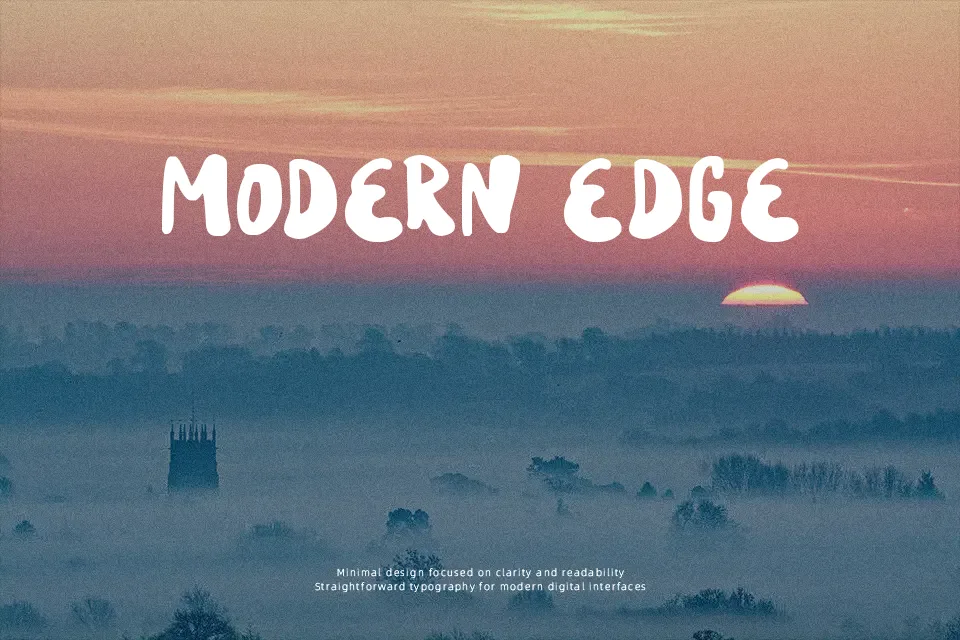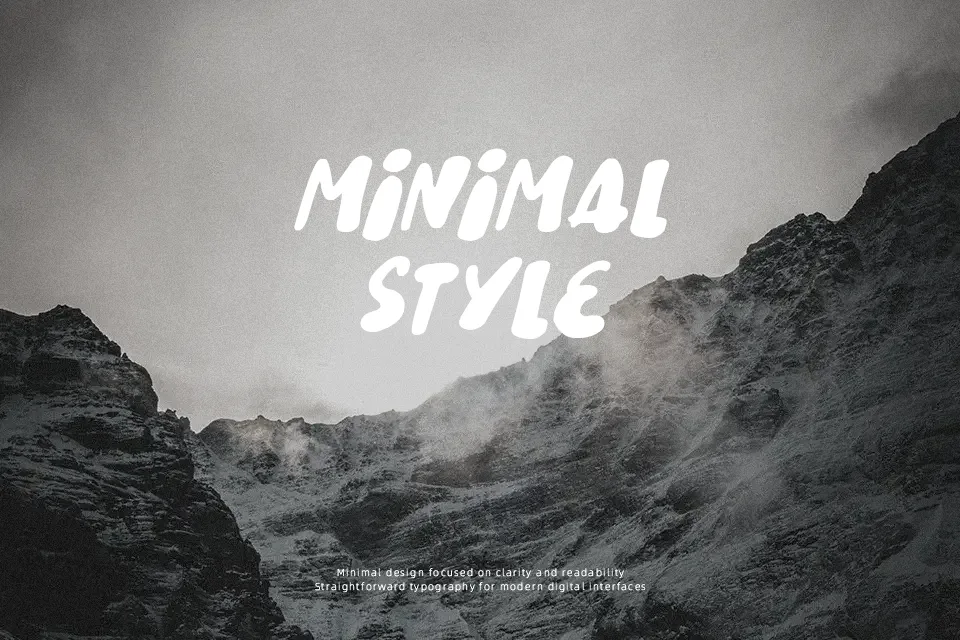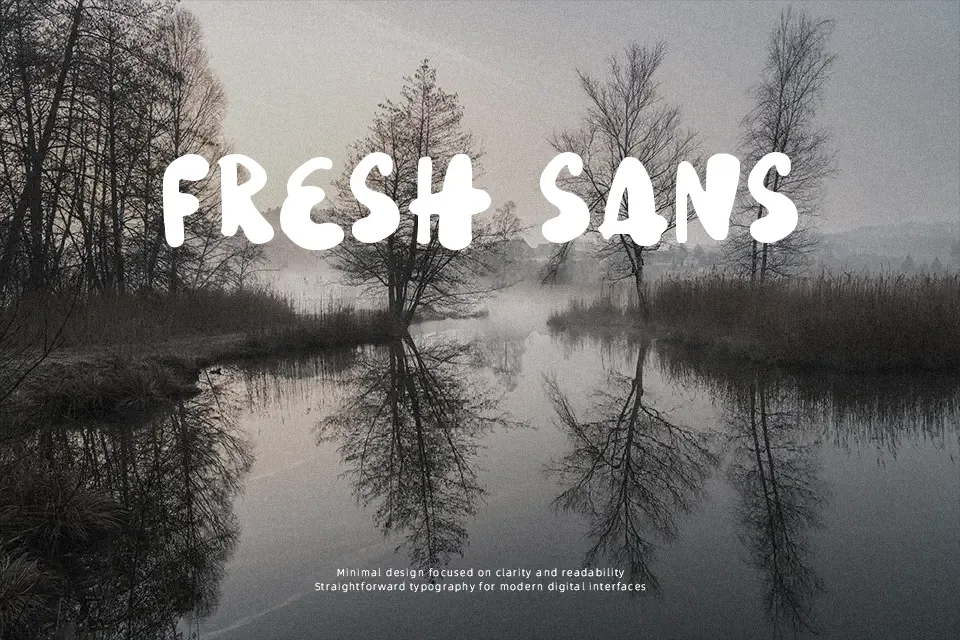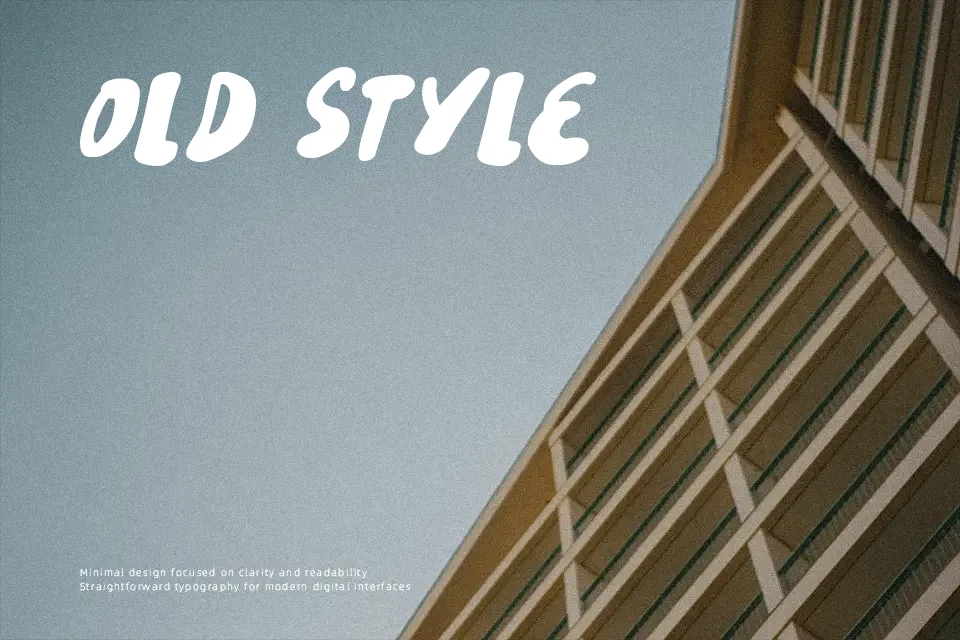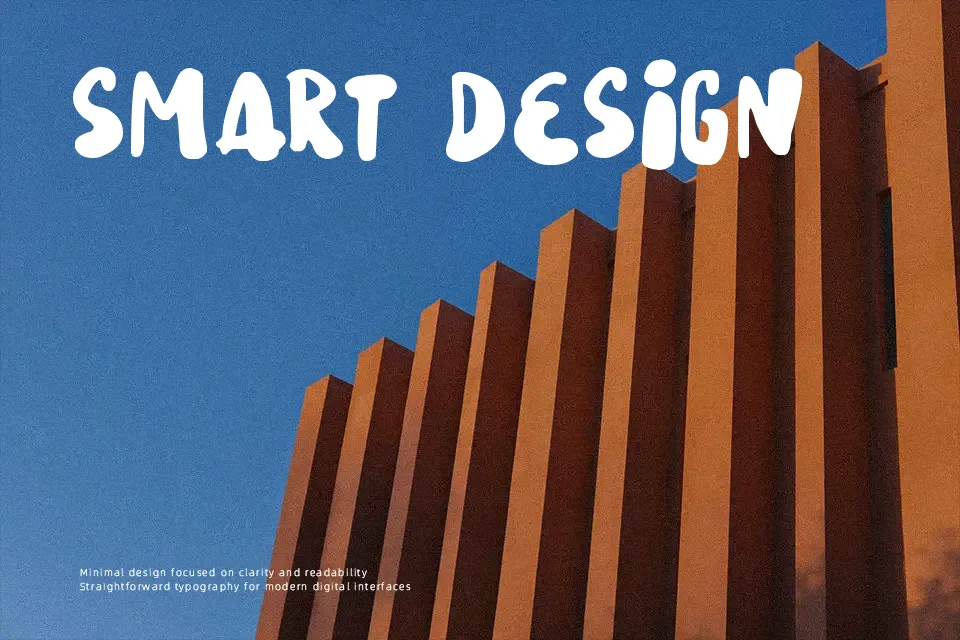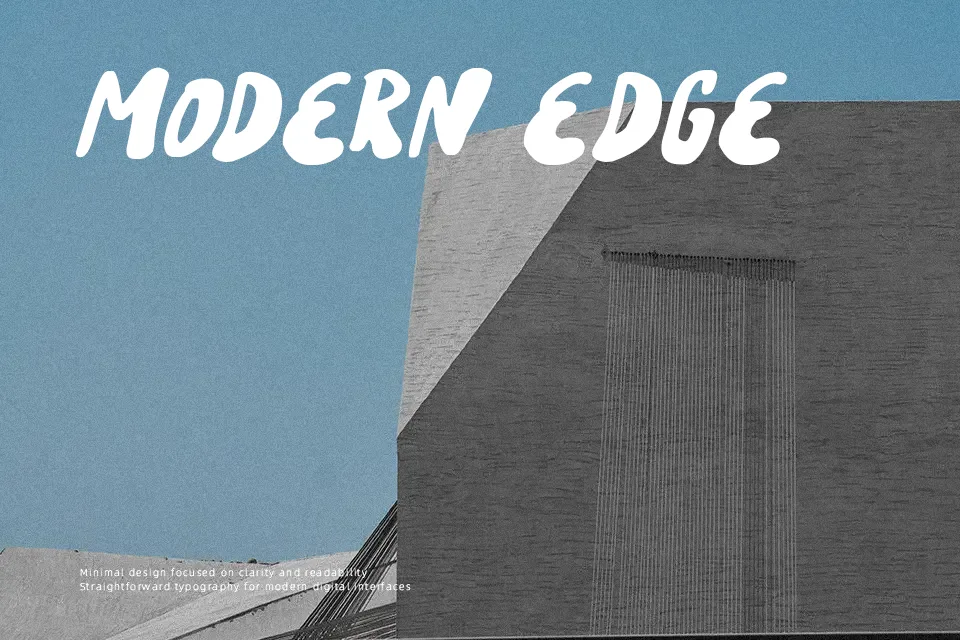
Snowy Skies Font
Designed by Darrell Flood
Snowy Skies Font establishes an energetic presence through puffed, cloud-like letterforms that emphasize soft contours and substantial stroke thickness. The design utilizes low stroke contrast and uniform plump proportions, paired with snug character spacing that gives short titles a cohesive, sticker-like appearance. At medium and large headline scales, the typeface delivers clear character distinction that works exceptionally well for animated title cards, comic covers, and toy branding. However, the exaggerated mass and tight tracking cause dense paragraphs to clot rapidly. The bulbous geometry maintains excellent impact in isolated headers but loses structural definition when rendered at smaller text sizes.
Best For: children book covers, holiday merchandise packaging, animated title cards, toy branding
Not Ideal For: extended body paragraphs, corporate financial reports, small interface labels, legal documents
Perfect for headline, holiday, and kids, with a bold and cartoon style.